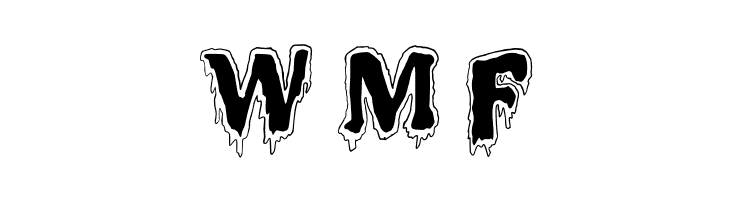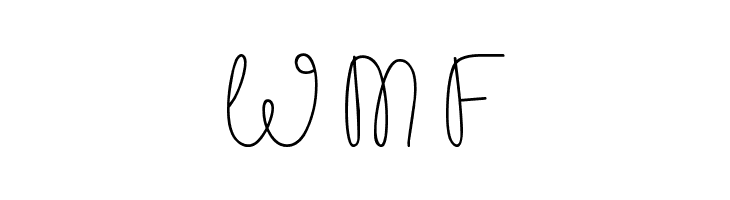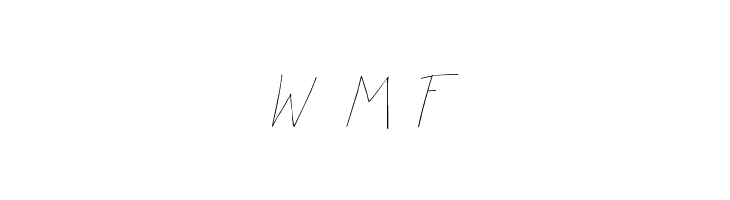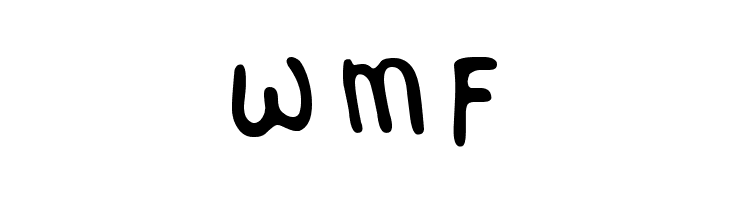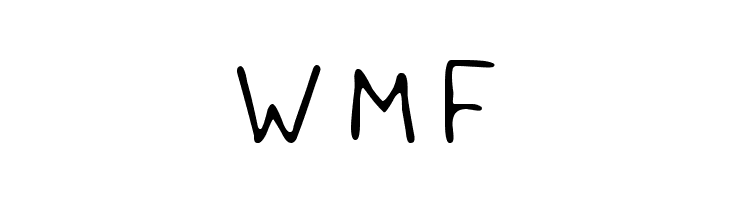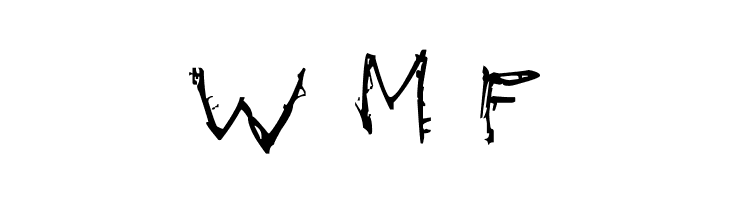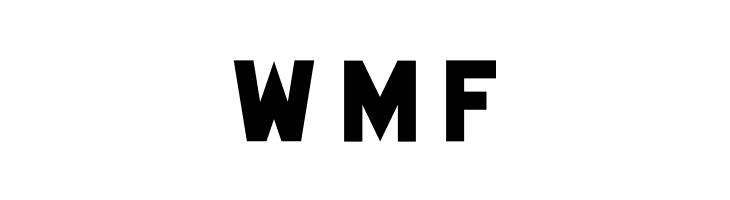
• Movie Letters
( Bou Fonts - Agustín Bou )
A tall, narrow, and modern font with consistent stroke width and elegant design.
• mozugushi
( Fonts by t )
A distressed, jagged font with a raw, edgy appearance.
• Mr Headlines
A bold, geometric font ideal for impactful headlines and titles.
• MR.MONSTAR
A bold, dripping font perfect for spooky or playful themes.
• MTF Becki
A playful, handwritten font with a casual and friendly appearance.
• MTF Chubb
A bold, rounded font with a playful and friendly appearance.
• MTF Cupcake
A playful, handwritten font with smooth, flowing lines and a whimsical style.
• MTF Flowrites
A delicate, handwritten font with a light, airy feel and elegant slant.
• MTF Hello Again
A playful, hand-drawn font with bold, rounded characters.
• MTF Magical Marilyn
A playful, handwritten font with whimsical, informal characteristics.